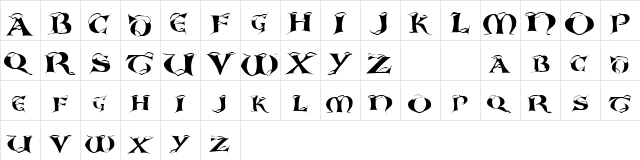
White Christmas Regular
Design Context for White Christmas Typeface
White Christmas is a composed and adaptable typeface that performs quietly and consistently across a wide range of design contexts.